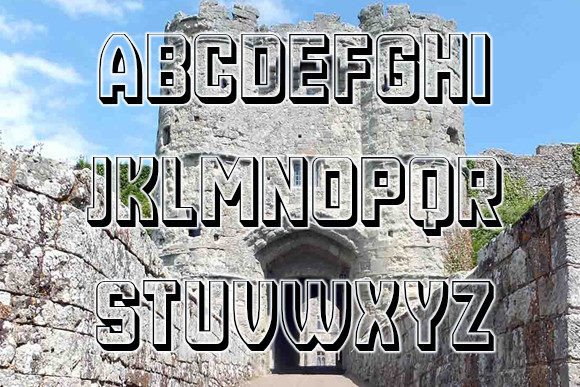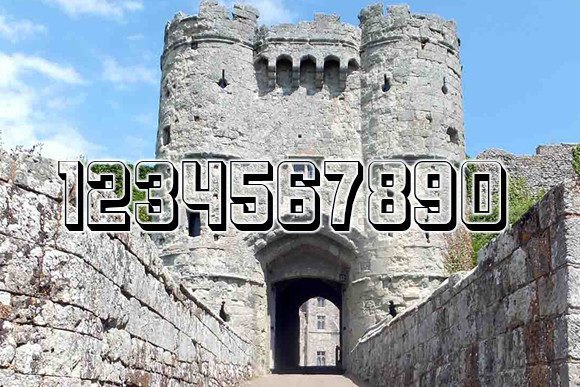
Introducing Carisbrooke Font: Elevate Your Designs with Elegance
Are you on the hunt for a font that exudes sophistication and elegance? Look no further than Carisbrooke, a stunning 3D typeface that’s sure to elevate your designs to the next level. Whether you’re working on posters, flyers, or any other project, Carisbrooke is the perfect choice for designers and crafters seeking to add a touch of luxury to their work.
The Characteristics of Carisbrooke Font
Carisbrooke is more than just a font – it’s a statement piece. Its elegant 3D design makes it stand out from the crowd, adding depth and visual interest to any project. The font’s sleek lines and curves create a sense of sophistication, making it perfect for designs that require a high level of professionalism.
Why Choose Carisbrooke Font?
So, why should you choose Carisbrooke for your next project? Here are just a few reasons:
- Elegance**: Carisbrooke’s 3D design gives it an air of elegance that’s hard to match. Whether you’re working on a luxury brand or a high-end product, this font is sure to impress.
- Versatility**: Carisbrooke is incredibly versatile, making it suitable for a wide range of projects. From posters and flyers to brochures and business cards, this font can be used in almost any design.
- Easy to Read**: Despite its 3D design, Carisbrooke is surprisingly easy to read, making it perfect for body text as well as headlines.
How to Use Carisbrooke Font in Your Designs
Using Carisbrooke in your designs is easy. Here are a few tips to get you started:
- Pair it with a sans-serif font**: For a classic look, pair Carisbrooke with a sans-serif font like Arial or Helvetica.
- Use it as a headline font**: Carisbrooke’s 3D design makes it perfect for headlines. Use it to grab attention and draw the reader in.
- Experiment with colors**: Carisbrooke looks great in a range of colors, from metallic tones to bold brights. Experiment with different colors to find the perfect look for your design.
The Benefits of Using Carisbrooke Font
So, what are the benefits of using Carisbrooke in your designs? Here are just a few:
- Stand out from the crowd**: Carisbrooke’s unique 3D design makes it stand out from the crowd. Use it to create designs that grab attention and leave a lasting impression.
- Add professionalism**: Carisbrooke’s elegant design makes it perfect for professional designs. Use it to add a touch of sophistication to your work.
- Increase engagement**: Carisbrooke’s eye-catching design is sure to increase engagement. Use it to draw the reader in and keep them interested.
Where to Use Carisbrooke Font
Carisbrooke is incredibly versatile, making it suitable for use in a wide range of projects. Here are a few ideas to get you started:
- Posters**: Carisbrooke’s 3D design makes it perfect for posters. Use it to create eye-catching headlines and draw the reader in.
- Flyers**: Carisbrooke is also great for flyers. Use it to add a touch of elegance and sophistication to your design.
- Brochures**: Carisbrooke’s easy-to-read design makes it perfect for brochures. Use it to create professional-looking body text and headlines.
- Business cards**: Carisbrooke’s elegant design makes it perfect for business cards. Use it to add a touch of sophistication to your professional materials.
In conclusion, Carisbrooke is an elegant 3D typeface that’s perfect for designers and crafters seeking to add a touch of luxury to their work. Its versatility, ease of use, and eye-catching design make it suitable for a wide range of projects, from posters and flyers to brochures and business cards. Whether you’re looking to stand out from the crowd, add professionalism, or increase engagement, Carisbrooke is the perfect choice.